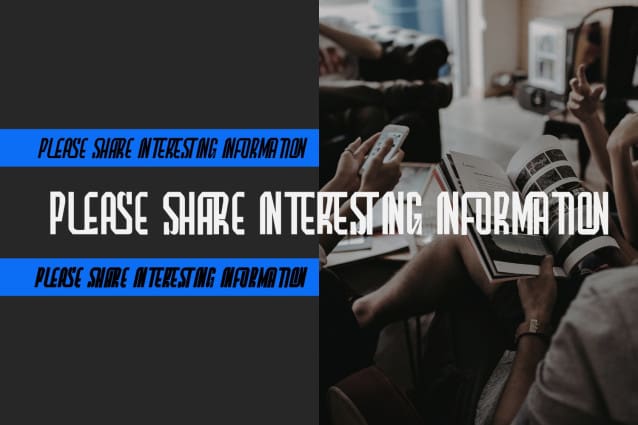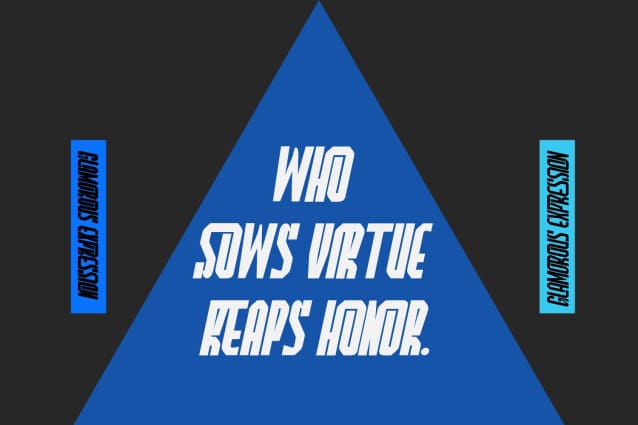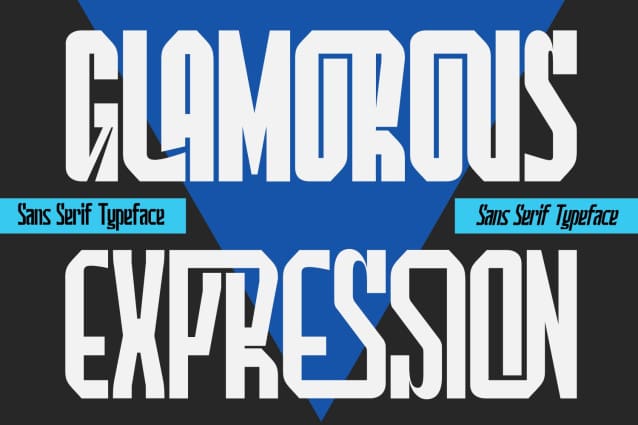
Glamorous Expression Font
GLAMOROUS EXPRESSION FONT is a fancy modern condensed sans serif font. With bold tall and sharp stroke, fun character with a bit of ligatures. A versatile sans-serif typeface that seamlessly blends modern aesthetics with functionality. This font is good for logo design, Social media, Movie Titles, Books Titles, a short text even a long text letter and good for your secondary text font with sans or serif.
GLAMOROUS EXPRESSION was built with OpenType features and includes 100 ligatures, alternate, numbers, punctuation, and it also supports other languages.
AC AD AL AN AR AS AT AU AV BE CA CE CH CO CT DE DI EA EC ED EE EL EM EN EP ER ES ET FE FO FR GE HA HE HI HO IE IC IL IN IO IR IS IT JU KE LA LE LI LL LO LY MA ME MI NC ND NE NG NO NT NS OC OF OM ON OO OP OR OT OU OW PA PR RA RD RE RI RO RS RT SE SH SI SO SS ST TA TE TH TI TO TR TT UM UN UR VE WI WO